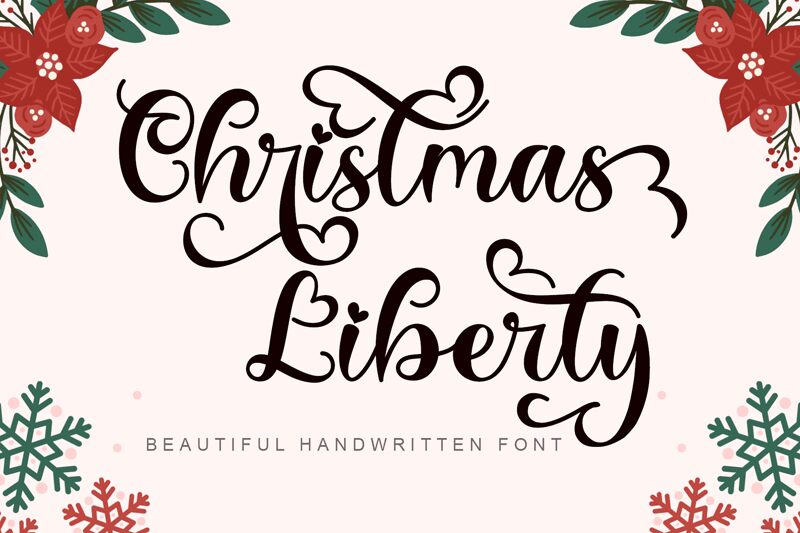
Christmas Liberty font by Yoga Letter is a free font with a flowing and whimsical style suited for a variety of creative projects. The design combines a holiday-inspired decorative style with an expressive and luxurious theme. This creates a unique touch due to sophisticated curves and playful strokes that can shine not only around the holiday season but at any time of the year.
Best used in titles, headings, and other areas meant to grab the audience’s attention, this font is perfect for posters, invitations, greeting cards, magazines, and other types of displays. Its ornamental and decorative style makes it suitable for special occasions like weddings or Valentine’s Day.